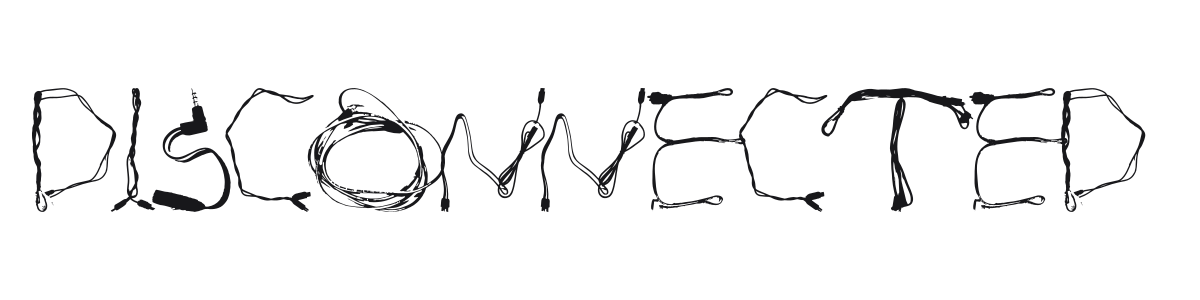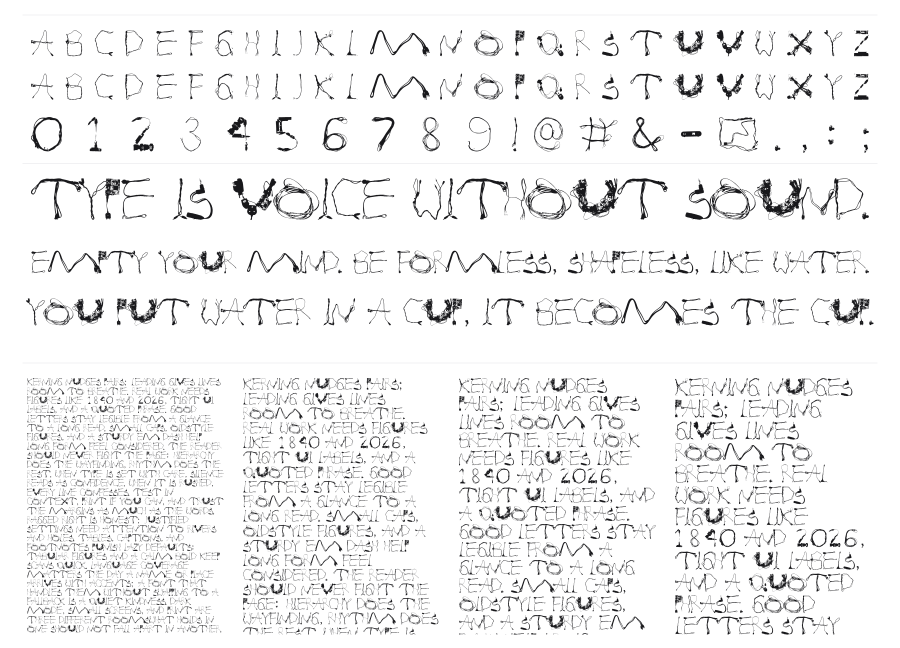
Disconnected
Disconnected is a novelty display font where every character is formed from tangled electrical cables, complete with coils, knots, and plug ends. The result is chaotic and immediately readable as a concept, with a raw, hand-assembled texture that makes it impossible to ignore at large sizes. It belongs on posters, album covers, or anywhere the message needs a jolt of anarchic energy.